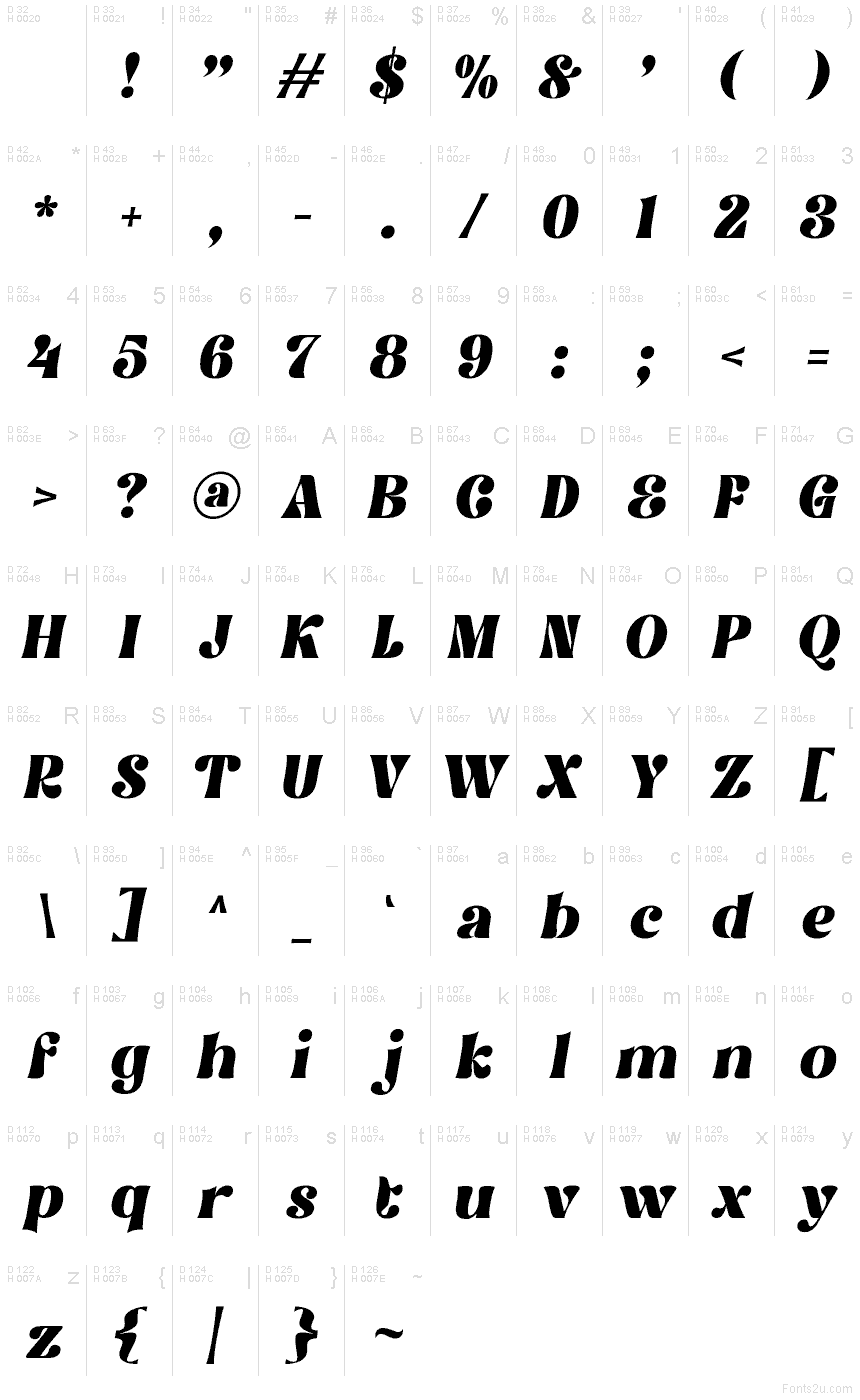
Miskan Oblique
Miskan Oblique font is a free retro display font by Wildan Type with a stylish retro look. Bold strokes and tight proportions define the letters of this friendly font that mixes smooth curves and rough edges harmoniously. The text generated has both engaging, sophisticated presentation making this typeface the perfect choice for several design projects.